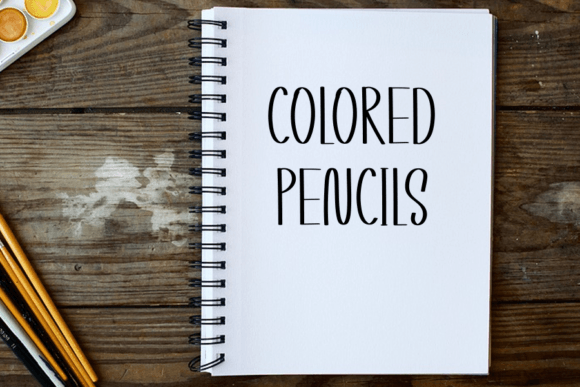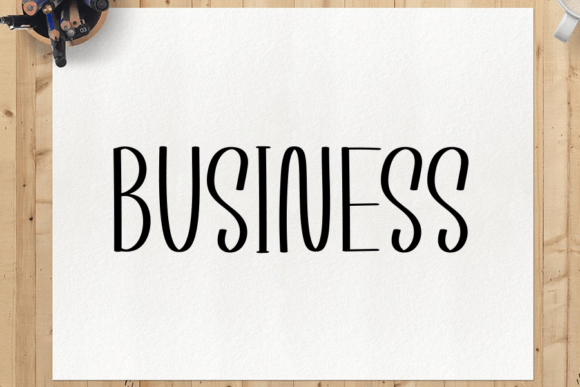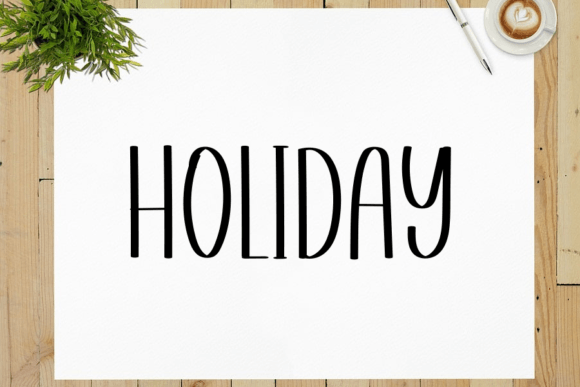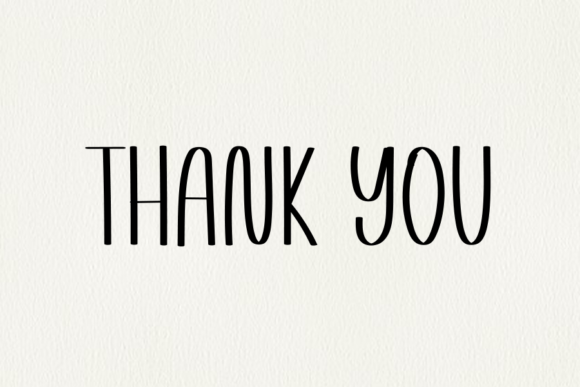
Introducing Farmhouse Font: A Sweet and Beautiful Handwritten Delight
Are you looking for a font that adds a touch of warmth and coziness to your design projects? Look no further than Farmhouse Font, a sweet and beautiful handwritten font that is sure to capture your heart. Featuring characters that dance along the baseline, this charming font is perfect for designers and crafters who want to add a personal touch to their creations.
What Makes Farmhouse Font So Special?
Farmhouse Font is a unique and eye-catching font that stands out from the crowd. Its handwritten style gives it a personal and organic feel, making it perfect for designs that require a touch of warmth and personality. The font’s characters are carefully crafted to dance along the baseline, creating a sense of movement and fluidity that adds to its charm.
Whether you’re designing a logo, creating a social media graphic, or crafting a handmade project, Farmhouse Font is the perfect choice. Its versatility and charm make it suitable for a wide range of design projects, from rustic and vintage-inspired designs to modern and minimalist ones.
- Handwritten style: Farmhouse Font features a beautiful handwritten style that gives it a personal and organic feel.
- Dancing characters: The font’s characters dance along the baseline, creating a sense of movement and fluidity.
- Cozy and inviting: Farmhouse Font has a warm and cozy feel that’s perfect for designs that require a touch of personality.
- Versatile: This font is suitable for a wide range of design projects, from rustic and vintage-inspired designs to modern and minimalist ones.
Uses for Farmhouse Font
Farmhouse Font is a versatile font that can be used for a wide range of design projects, including:
- Logos and branding: Use Farmhouse Font to create a unique and memorable logo that reflects your brand’s personality.
- Social media graphics: Add a touch of personality to your social media graphics with Farmhouse Font.
- Handmade projects: Use Farmhouse Font to add a personal touch to your handmade projects, such as crafts, DIY tutorials, and more.
- Web design: Use Farmhouse Font to add a touch of warmth and personality to your website.
Here are some tips for using Farmhouse Font in your design projects:
- Pair with other fonts: Farmhouse Font pairs well with other fonts, such as serif and sans-serif fonts. Experiment with different combinations to find the perfect pairing.
- Use in combination with images: Farmhouse Font looks great when paired with images, especially those with a rustic or vintage feel.
- Experiment with colors: Farmhouse Font looks great in a range of colors, from bold and bright to soft and pastel.
Farmhouse Font is a sweet and beautiful handwritten font that is sure to add a touch of warmth and personality to your design projects. Its unique and eye-catching style makes it perfect for designers and crafters who want to create unique and memorable designs. With its versatility and charm, Farmhouse Font is a must-have font for any designer or crafter looking to add a personal touch to their creations.